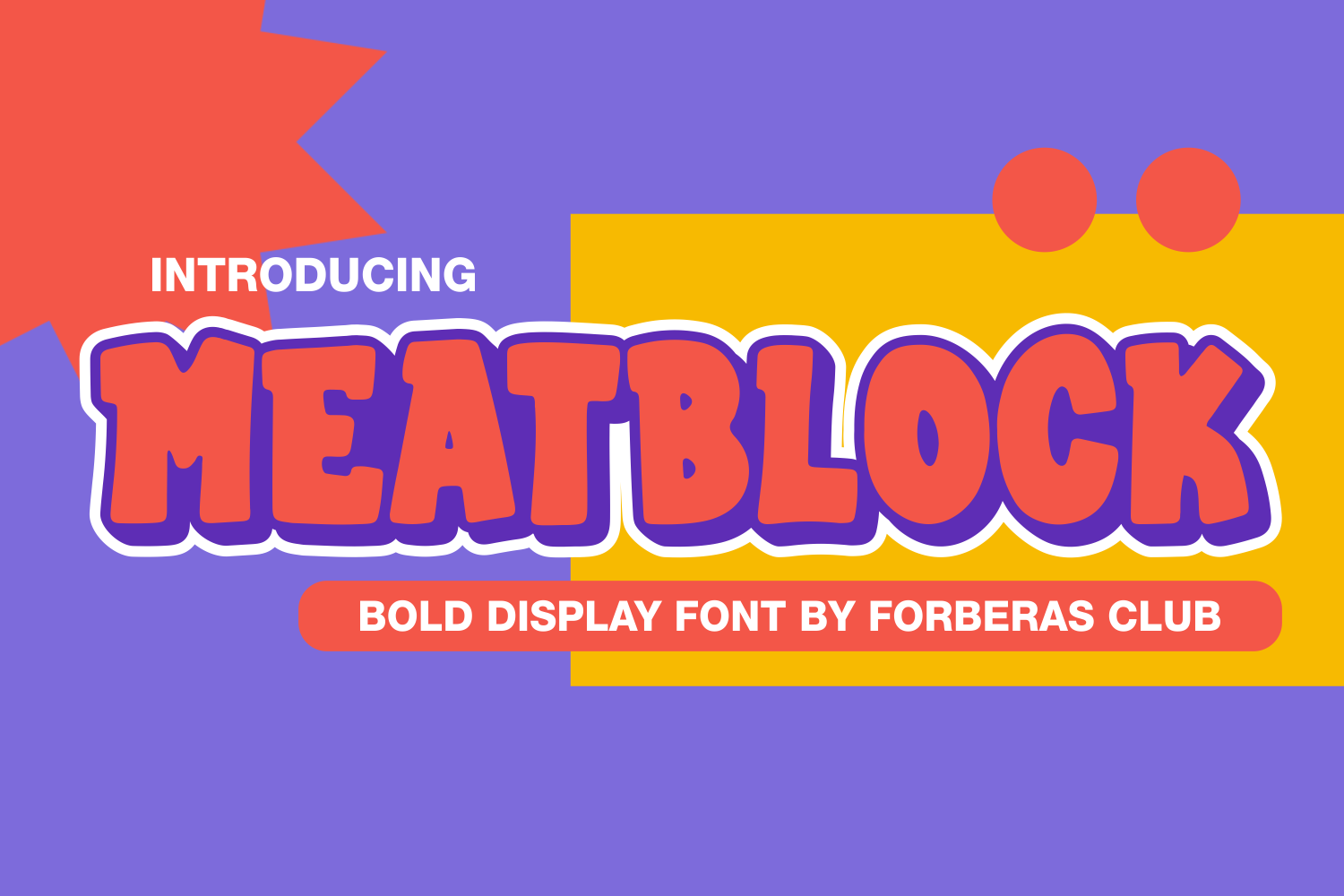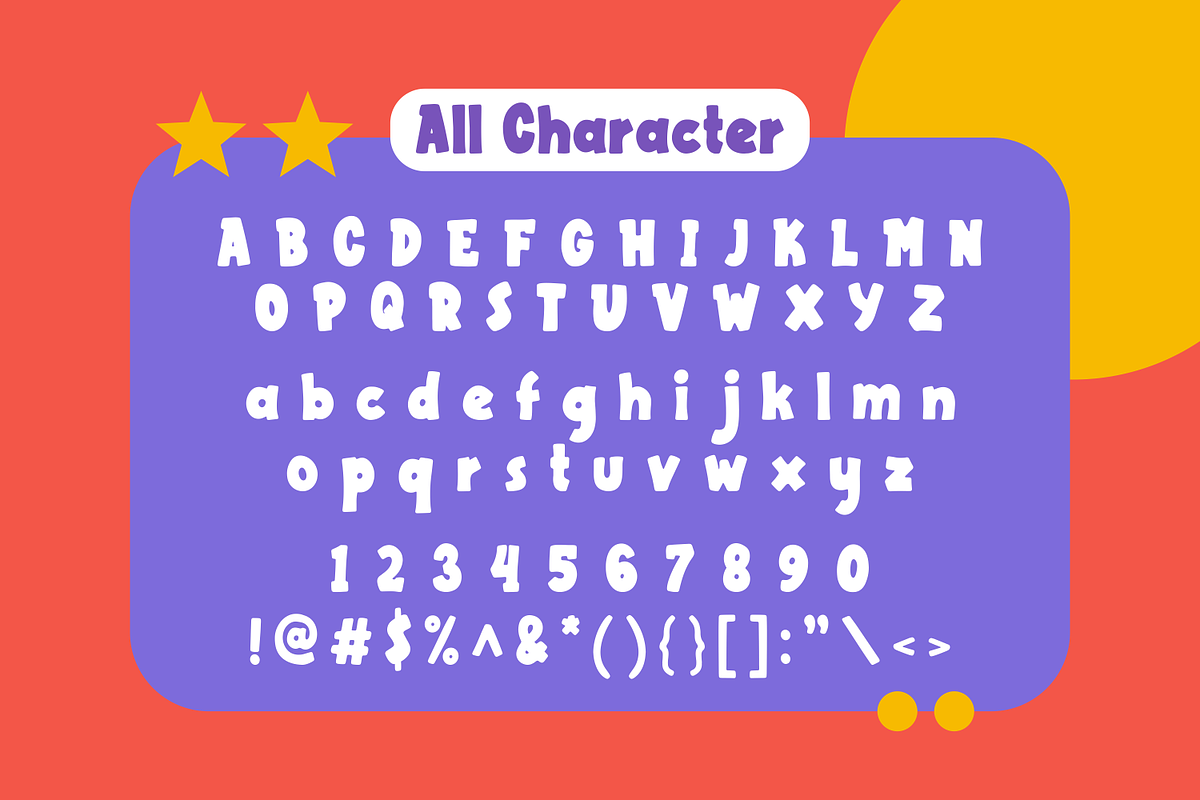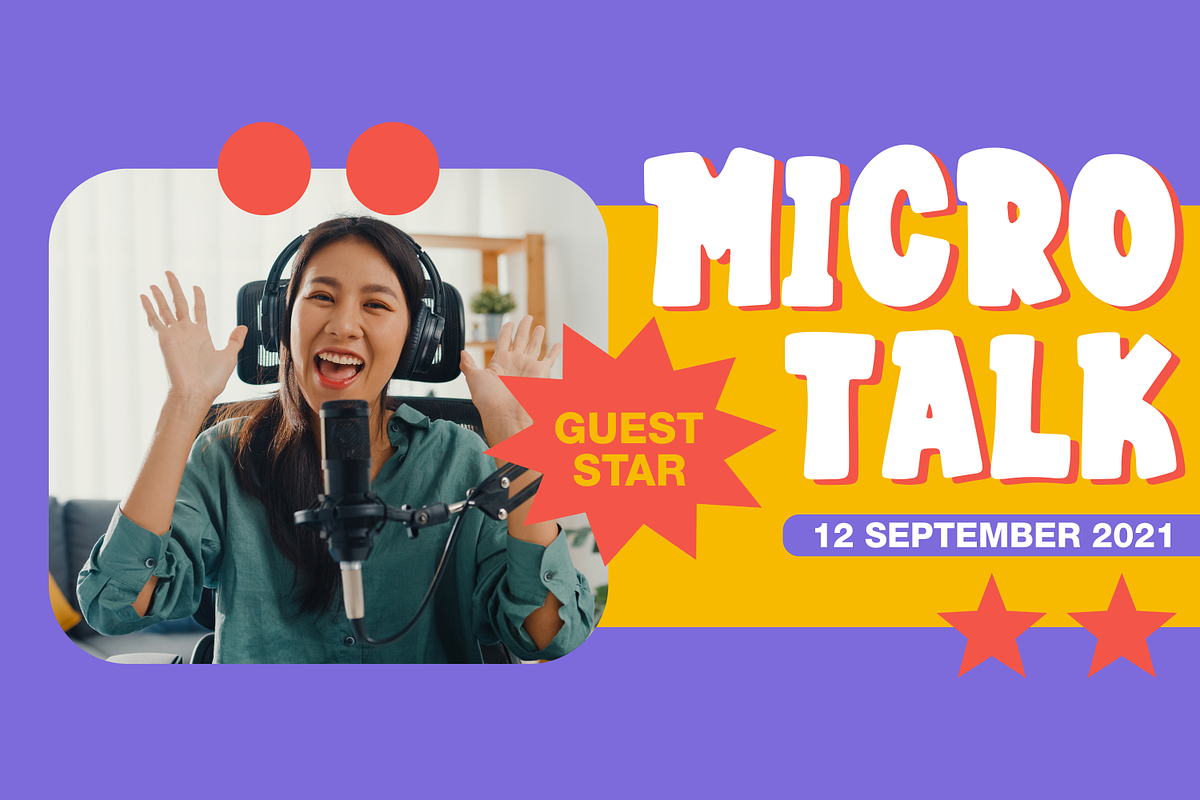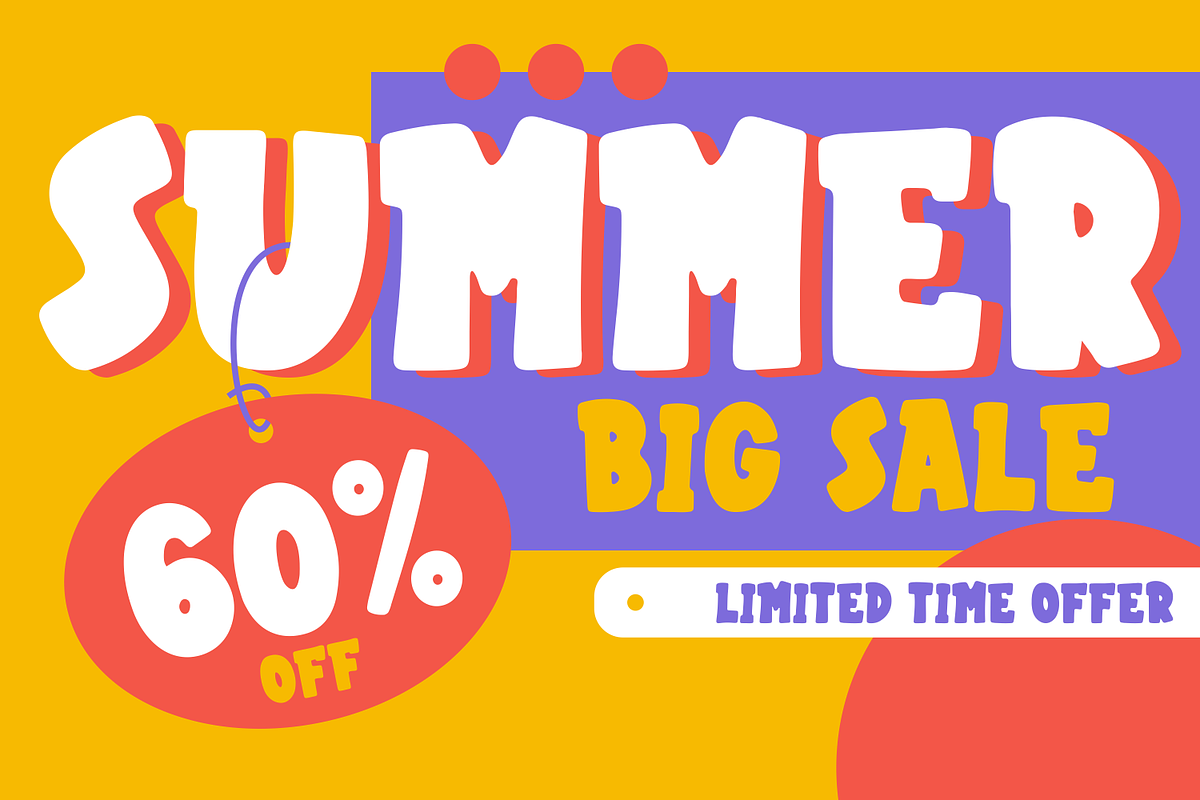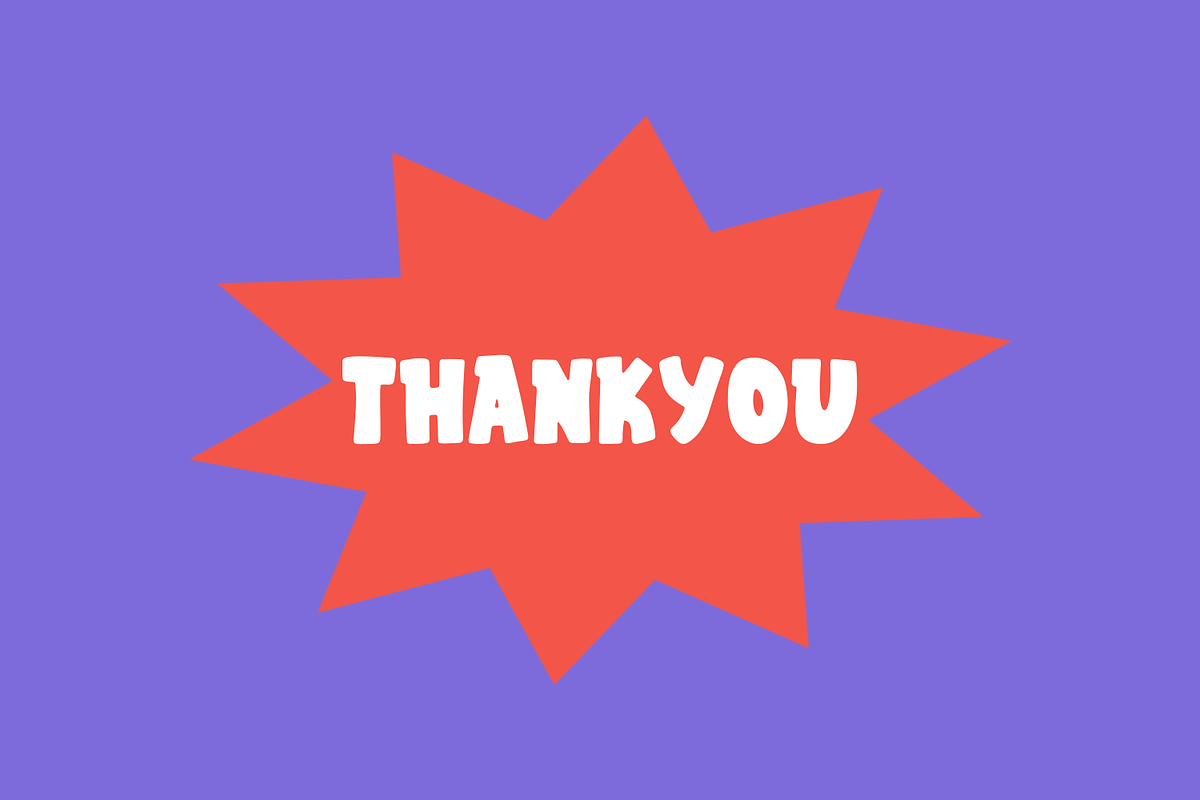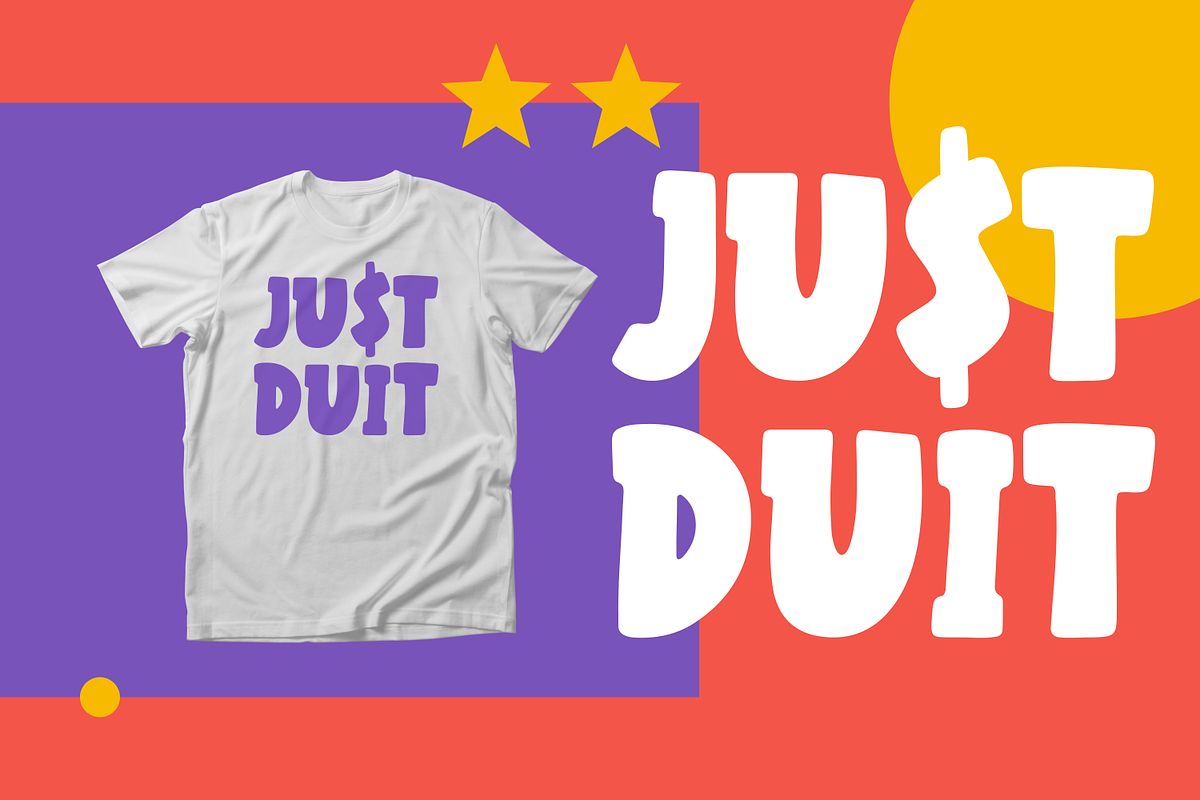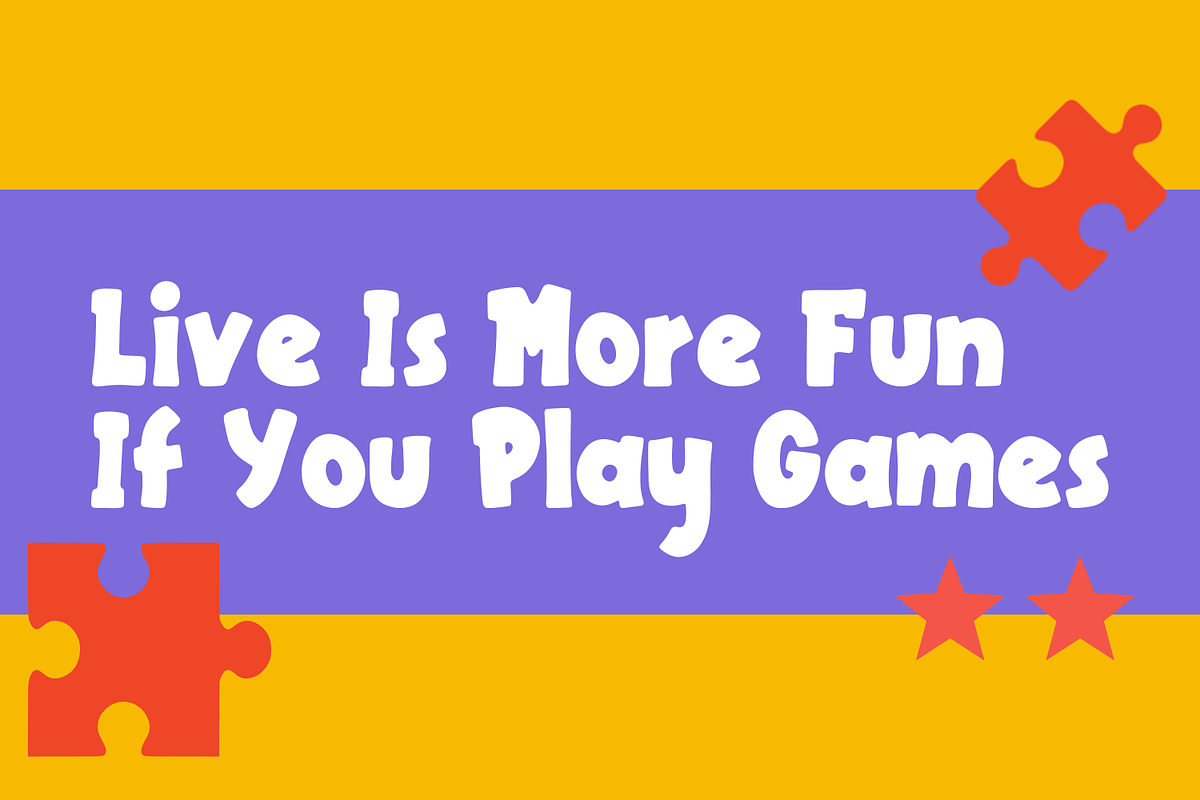
Meatblock | Bold Display Font
Introducing Meatblock by Forberas
Modern and beautiful handwritten script font! Great for wedding greeting cards, logos, branding materials, Invitation, business cards, quotes, posters, Cricut artwork and more!